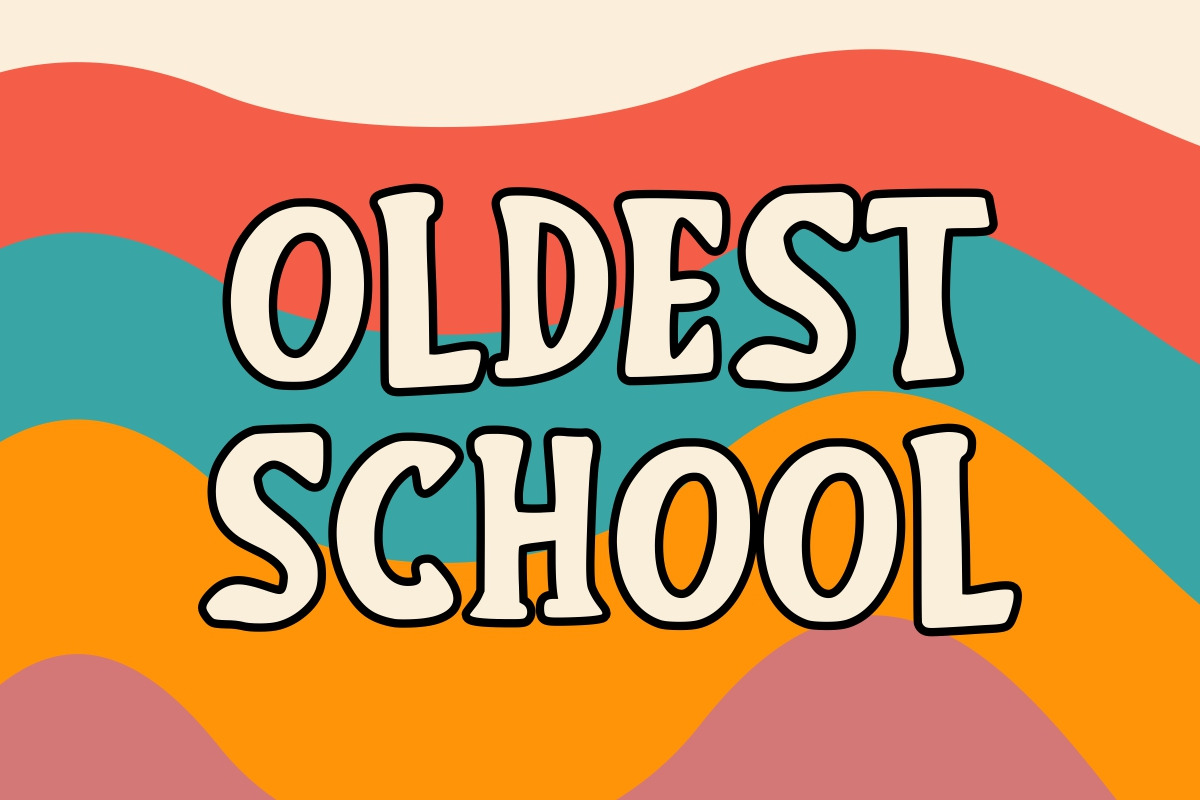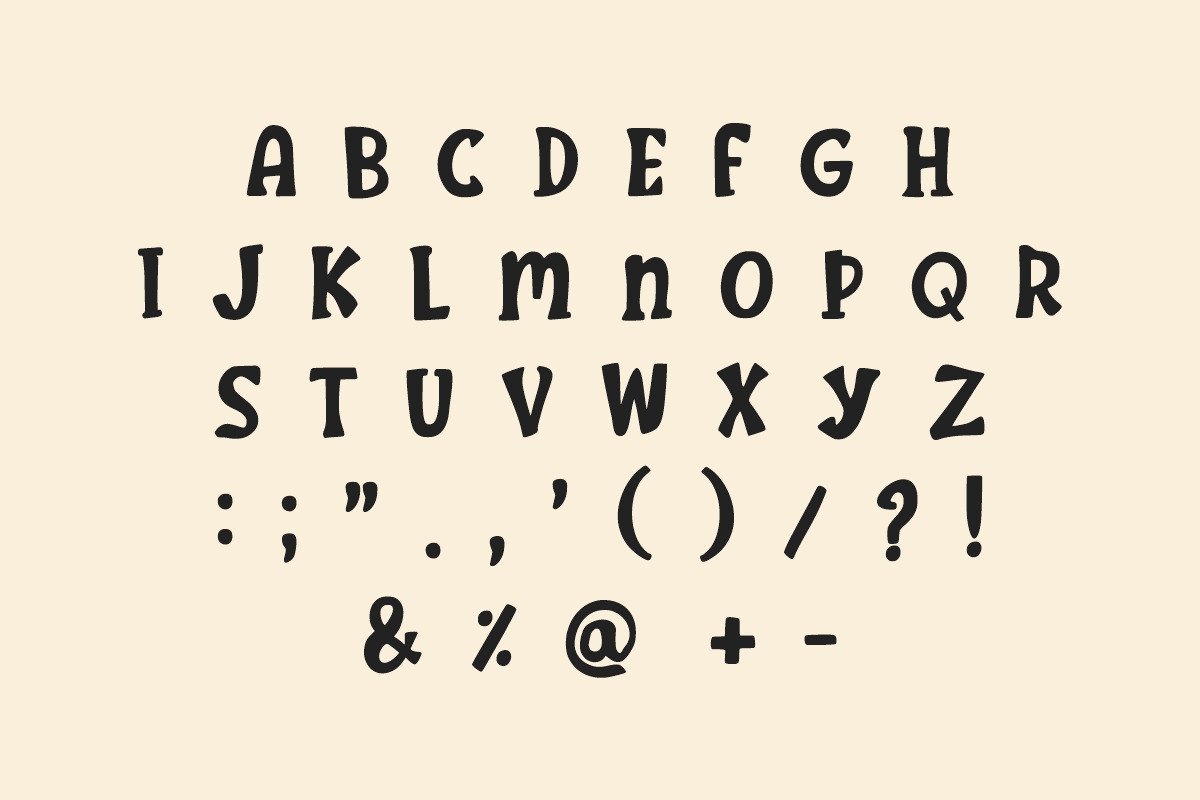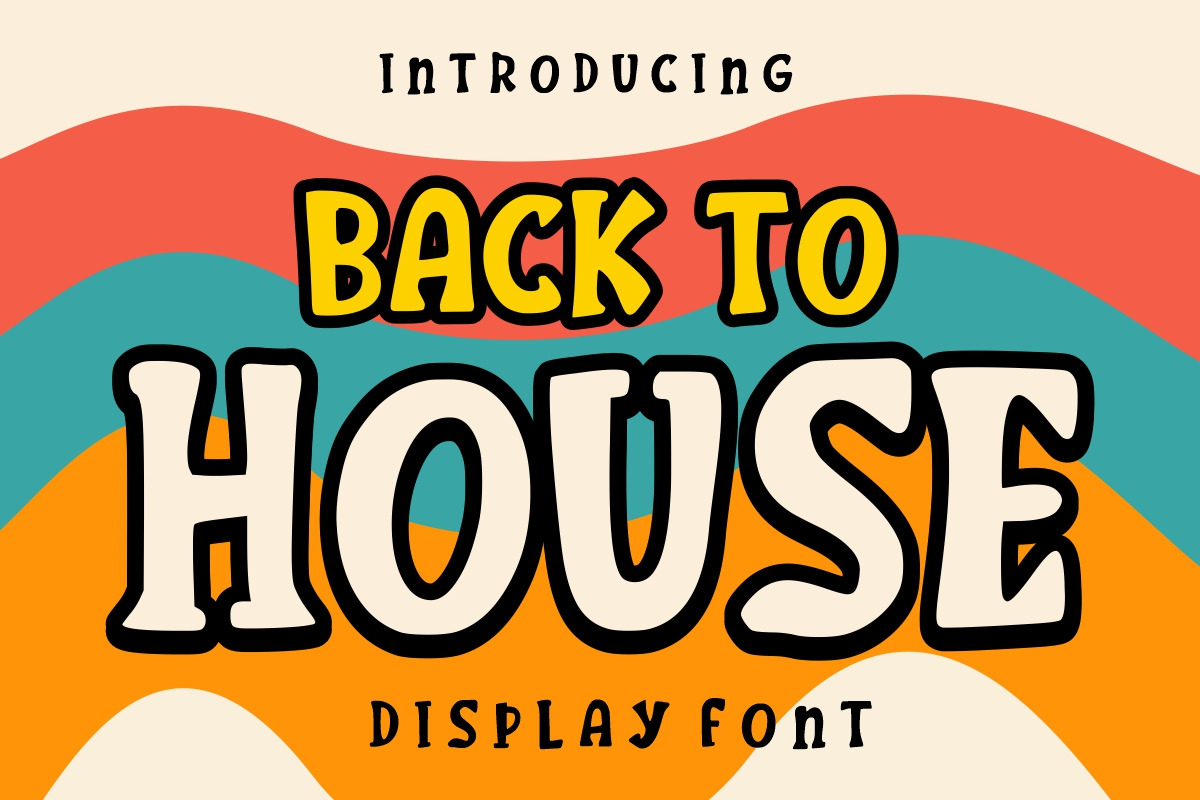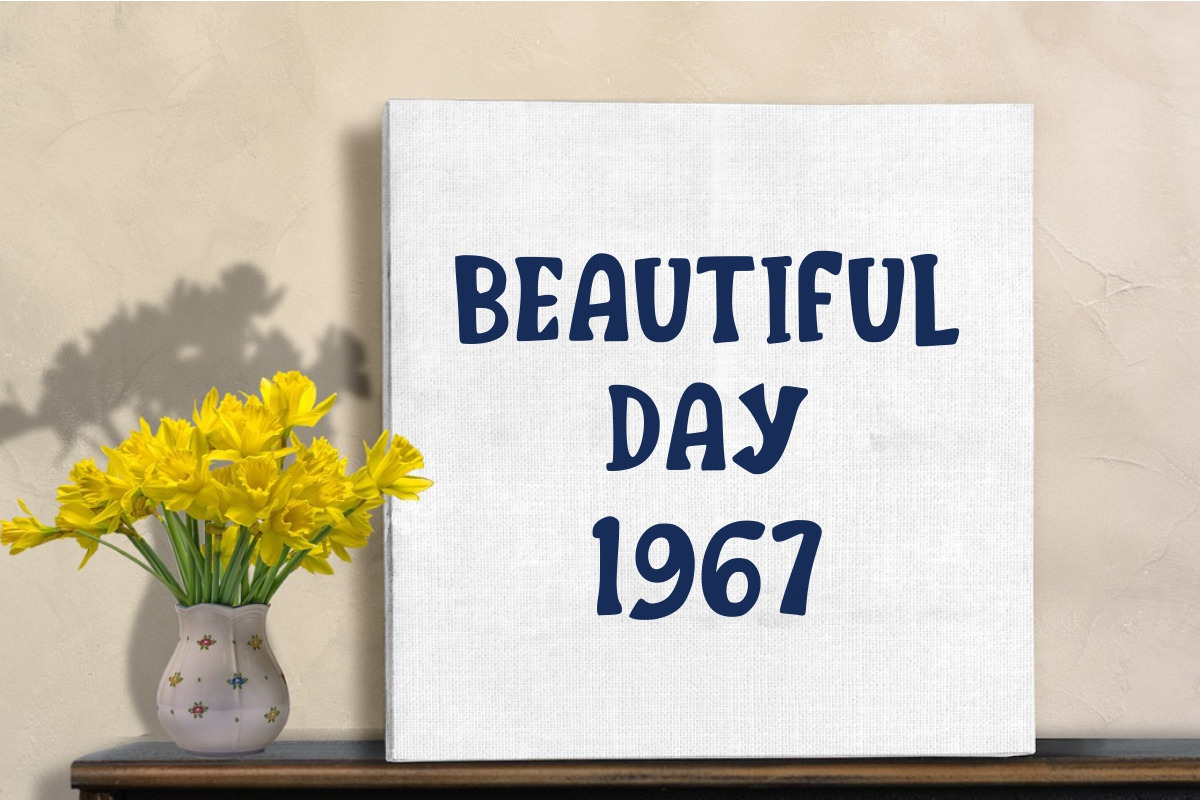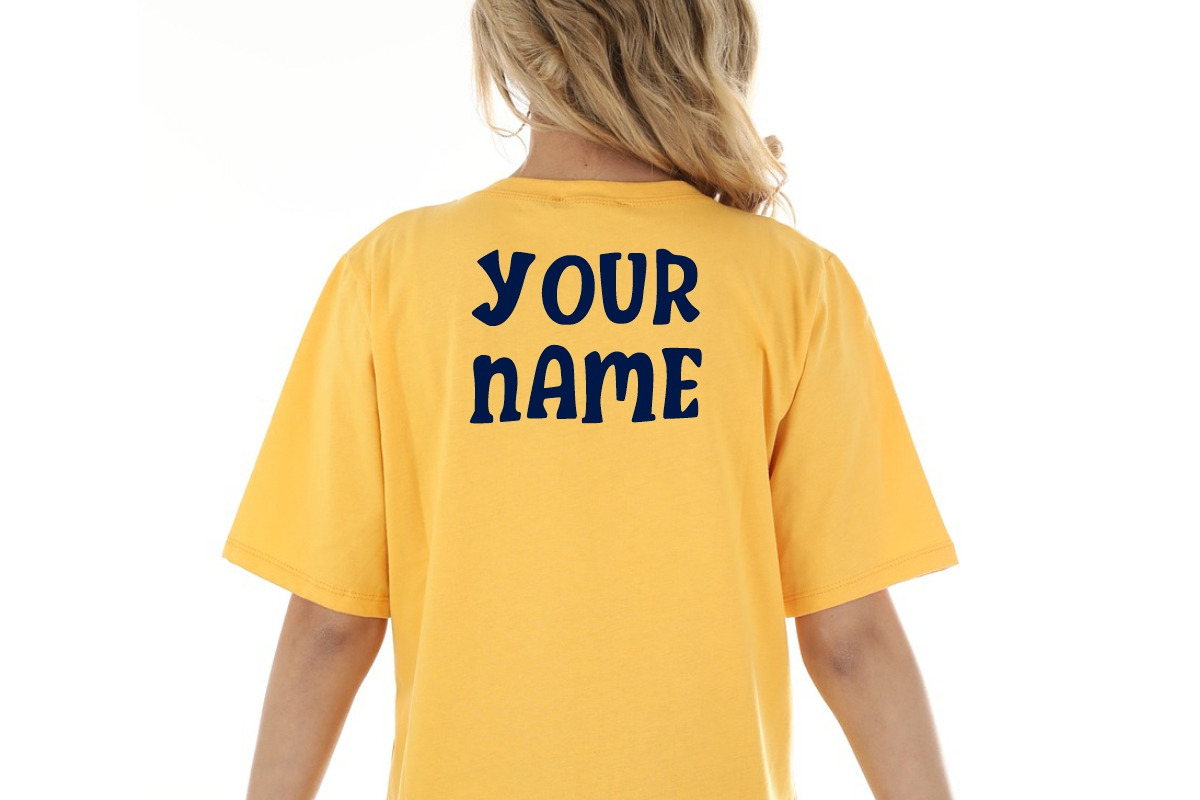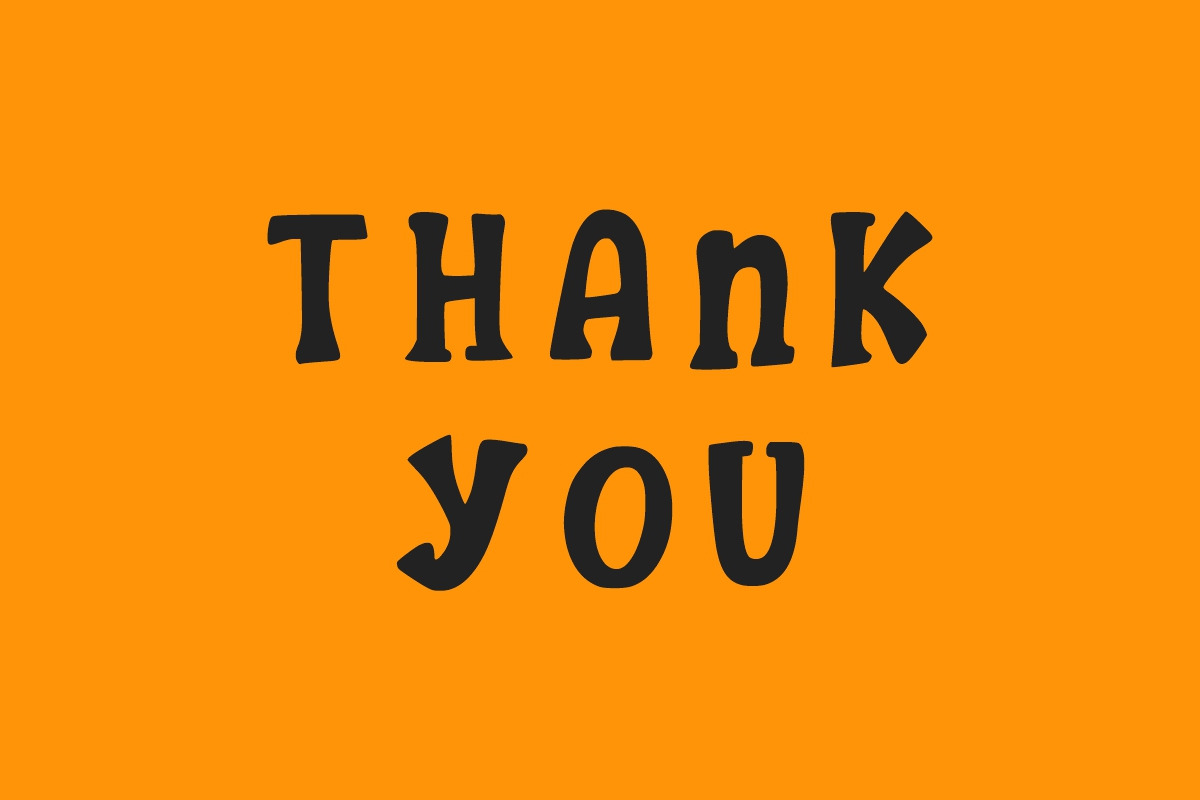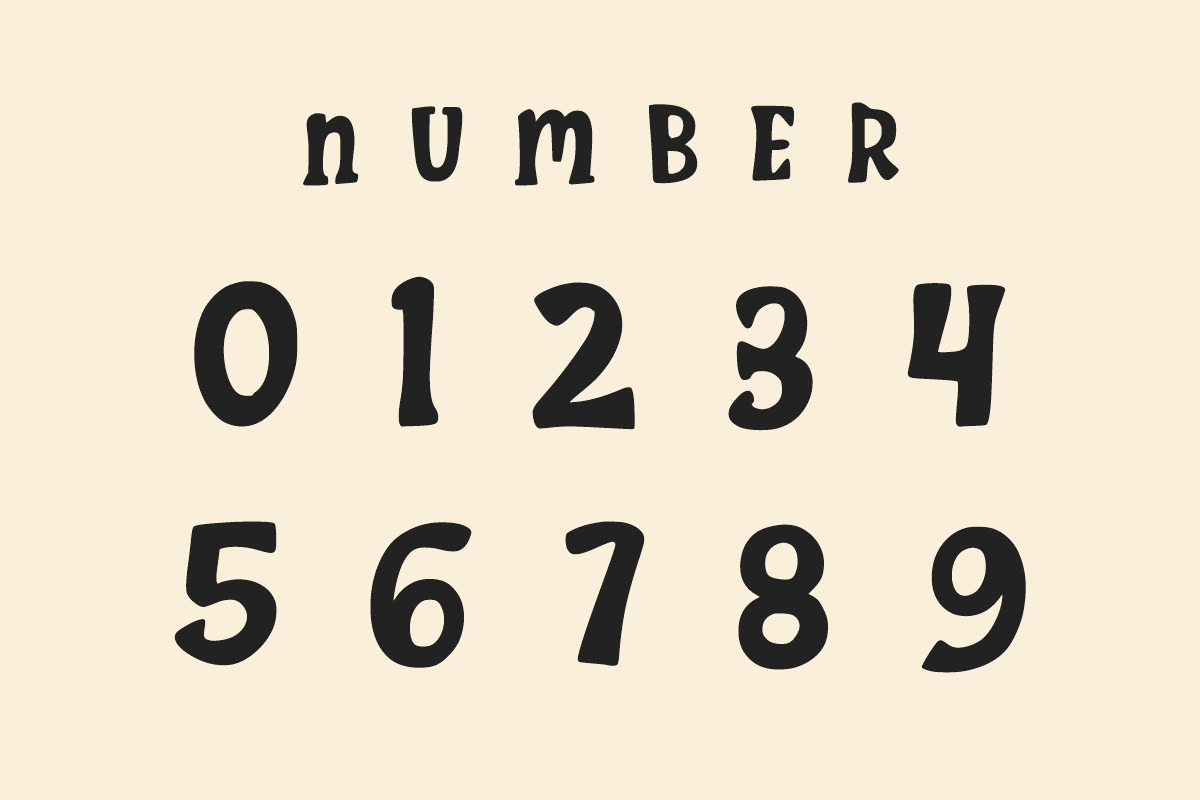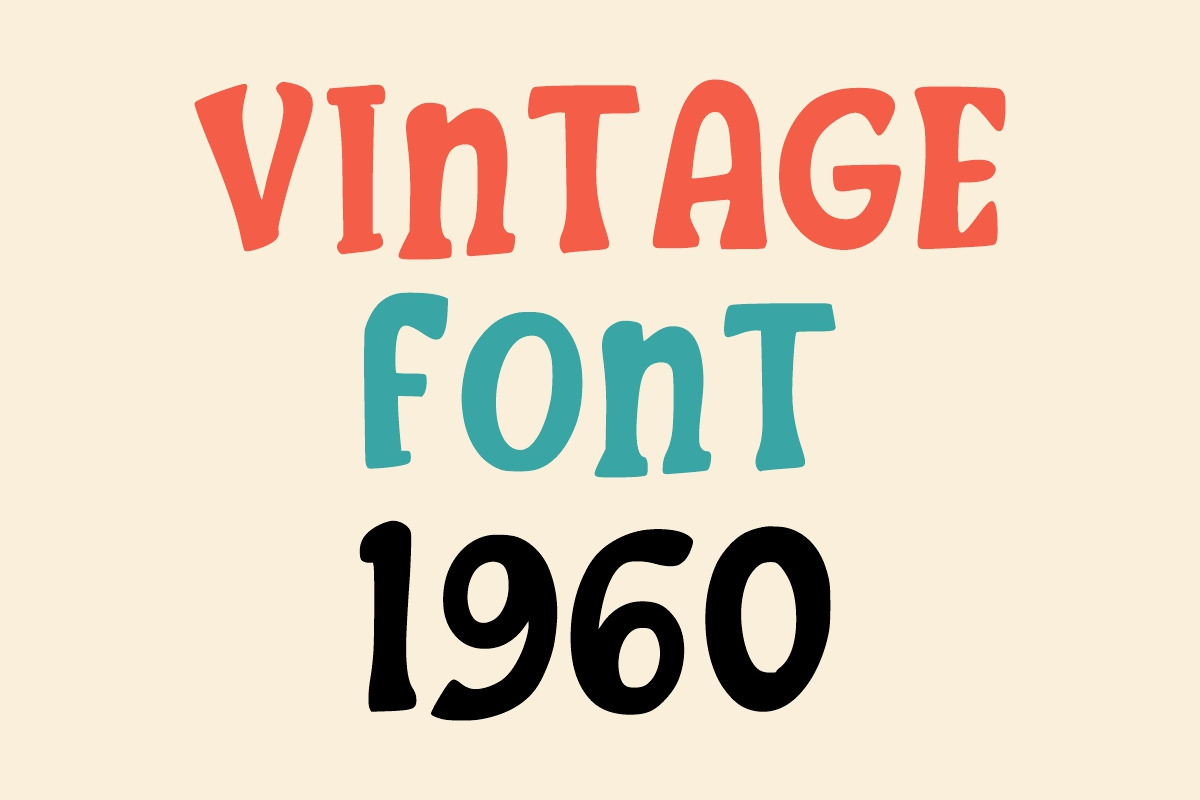
Back To House - Vintage Font
BACK TO HOUSE is a vintage, classic, and bold display font. You can use it for various projects such as blog posts, logos, branding, ads, invitations, greeting cards, planners, photo albums, decorations, and much more.